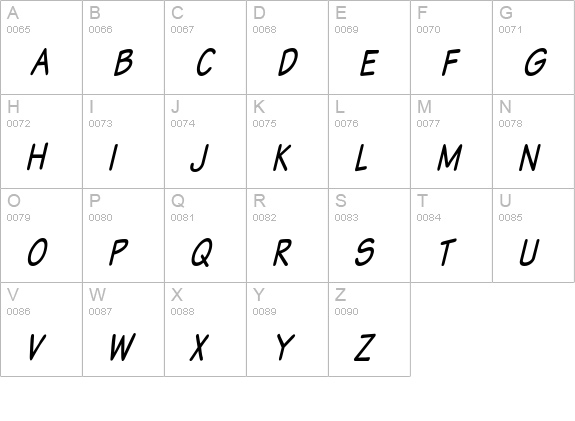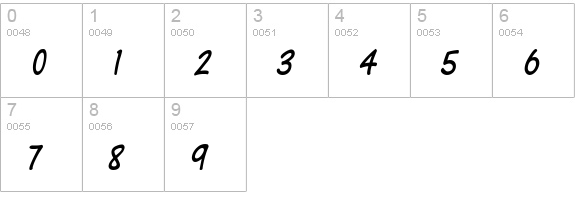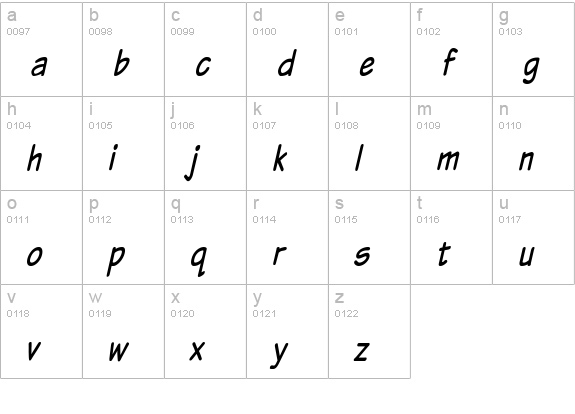
Komika Text Tight Italic is a distinctive, italic variant in the Komika typeface family \xE2\x80\x94 well suited to design and typography projects.
Komika Text Tight Italic is a stylish and versatile font that exudes a modern and sleek aesthetic. With its slanted and italicized design, this font brings a unique and dynamic flair to any project. The elegant curves and sharp angles of Komika Text Tight Italic make it a perfect choice for adding a touch of sophistication to your designs. What sets Komika Text Tight Italic apart is not only its striking appearance but also the fact that it is available for free download at FontsMarket.com. This means that you can easily access this eye-catching font without any cost, making it a valuable addition to your font collection. Whether you are working on branding materials, editorial layouts, or digital designs, Komika Text Tight Italic offers the flexibility and creativity you need to make your projects stand out. Embrace the modern and bold look of this font and elevate your designs to new heights with Komika Text Tight Italic.